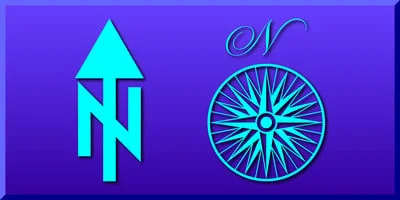
The North Arrow Assortment Font is a unique and highly practical dingbat font, specifically designed to provide a comprehensive collection of diverse North arrows and directional indicators. Imagine its precise and varied symbols enhancing map designs for outdoor adventure guides, adding professional orientation to architectural blueprints, or clearly indicating direction on hiking trail markers. Its specialized glyphs make it an excellent choice for cartography, geological surveys, urban planning documents, real estate listings, and any design where clear, concise, and professional directional graphics are paramount. Whether you're aiming for a classic compass rose, a minimalist arrow, or a decorative directional element, North Arrow Assortment Font delivers with its wide range of options, ensuring your visuals are both functional and aesthetically appropriate.
What makes North Arrow Assortment Font so exciting is its dedicated focus on a single, essential design element: the North arrow. In a field like mapping or technical drawing, consistency and variety in directional indicators are crucial, yet often overlooked. This font offers designers a curated library of high-quality, easily scalable arrow designs, eliminating the need to search for or create individual graphics. It’s more than just a typeface; it’s a specialized toolkit that streamlines the design process for anyone working with maps, plans, or directional information. Its ability to provide precise, vector-based symbols ensures perfect scaling and crisp reproduction, making it an invaluable asset for professionals and enthusiasts alike.
The North Arrow Assortment Font family, as an "assortment" or dingbat font, is structured to offer a wide variety of symbols rather than traditional alphabetical characters and weights. Its "family" is typically defined by the comprehensive nature of its single specialized set. You would find:
Diverse North Arrow Glyphs: Each character slot (e.g., accessed by typing A, B, C, etc., or by glyph panel) corresponds to a different style of North arrow. This includes classic compass roses, simple arrows, stylized indicators, and perhaps more decorative elements.
Directional Indicators: Beyond just North, some variations might include other cardinal or intercardinal directions, or general directional pointers.
Vector Scalability: As a font, all the included arrows are vector graphics, meaning they can be scaled to any size without loss of quality, unlike raster images.
This single, yet rich, set of symbols provides designers with immense flexibility to choose the perfect directional element to complement their maps, plans, and technical illustrations, ensuring visual consistency and professional quality throughout.